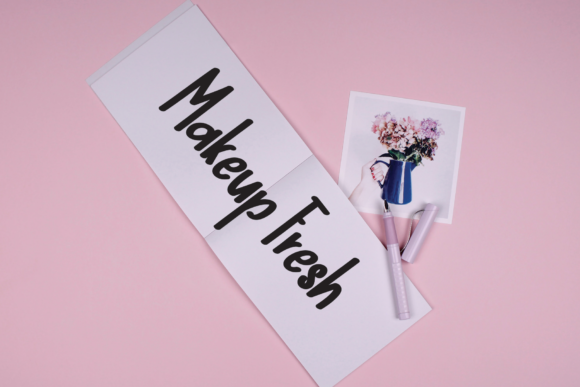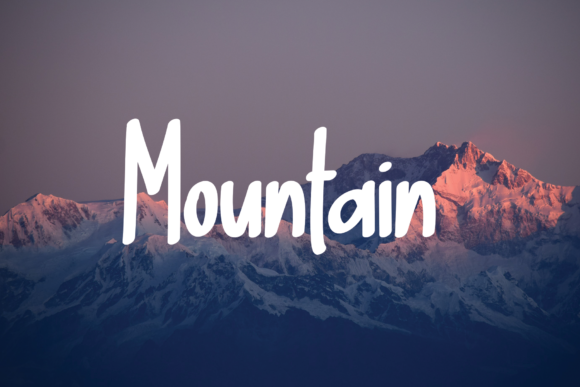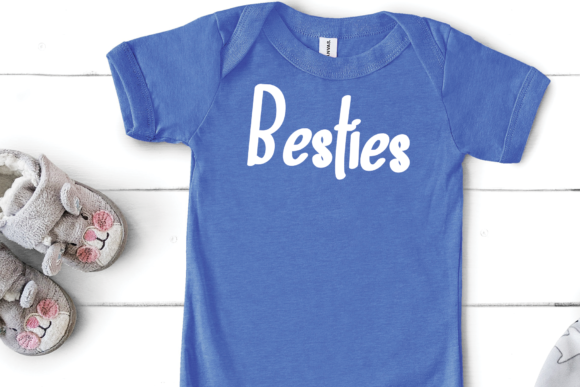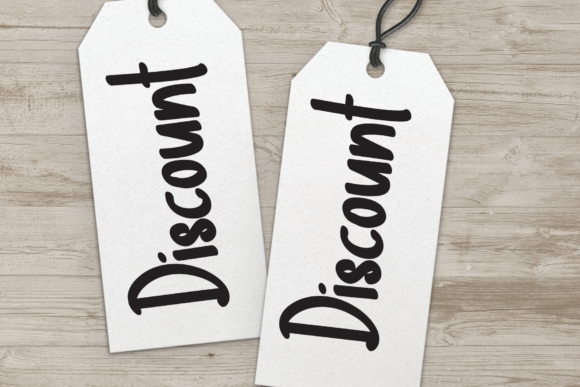
About Nemo and Memo Font
Nemo and Memo is a versatile and charming handwritten font that brings a touch of uniqueness and elegance to a wide array of design projects. Its simplicity and adaptability make it a perfect choice for adding a personalized and stylish element to your creations.
With its distinctive and handcrafted appearance, Nemo and Memo imparts a sense of individuality and creativity to your text. The font’s clean and fluid strokes give your words a whimsical yet polished feel, making them stand out and capture attention.
For wedding invitations, Nemo and Memo adds a dash of creativity and warmth. Its handwritten style conveys a sense of intimacy and personal connection, setting the tone for a special and memorable event. Whether you’re aiming for a traditional or contemporary wedding theme, the font effortlessly adapts to convey the desired ambiance.
In the world of business, Nemo and Memo injects a sense of approachability and originality into branding materials. From business cards to promotional materials, the font’s playful yet professional look creates a distinctive and memorable impression. It communicates a sense of innovation and friendliness to clients, partners, and stakeholders.
Greeting cards come to life with Nemo and Memo’s unique flair. Birthdays, holidays, and heartfelt messages are elevated by the font’s charming and whimsical aesthetic. Its adaptability allows you to convey a wide range of emotions and sentiments, from joy and celebration to sincerity and comfort.
Social media posts benefit from Nemo and Memo’s creative and eye-catching appearance. Whether you’re sharing quotes, announcements, or lifestyle content, the font adds a touch of playfulness and originality to your online presence. Its versatility ensures that your posts resonate with your audience and leave a positive impact.
When utilized for wall art and home decor, Nemo and Memo transforms ordinary words into visually engaging and captivating pieces. The font’s artistic and flowing design adds a sense of beauty and character to any space. Whether you’re creating inspirational phrases, personalized quotes, or decorative signage, Nemo and Memo enhances the visual appeal of your surroundings.
One of Nemo and Memo’s standout qualities is its adaptability to various design styles. Its playful yet refined look makes it suitable for a variety of projects, maintaining a consistent and harmonious appearance across different mediums and platforms.
In essence, Nemo and Memo is a font that radiates originality, versatility, and a touch of whimsy. Its handcrafted and fluid design makes it a valuable asset for a range of design ventures, including wedding invitations, business cards, greeting cards, social media posts, wall art, and more. Whether you’re striving for a creative, lighthearted, or unique look, Nemo and Memo is a font that effortlessly enhances your creative endeavors.